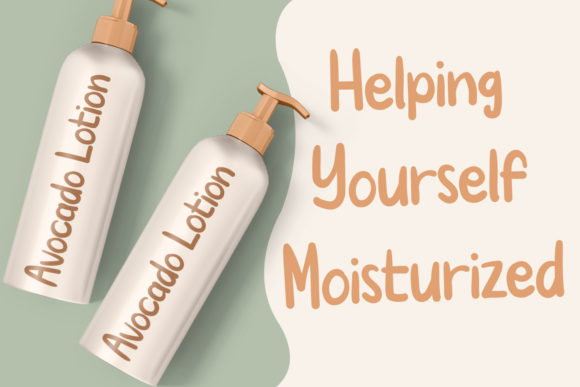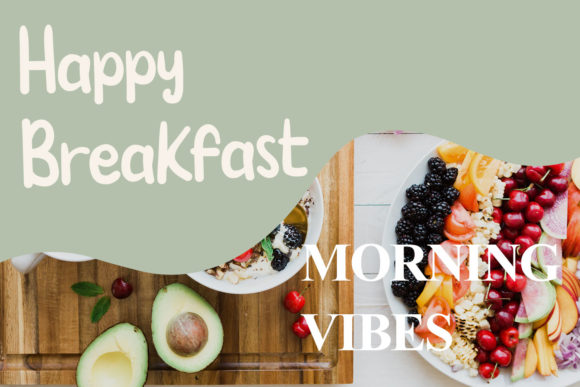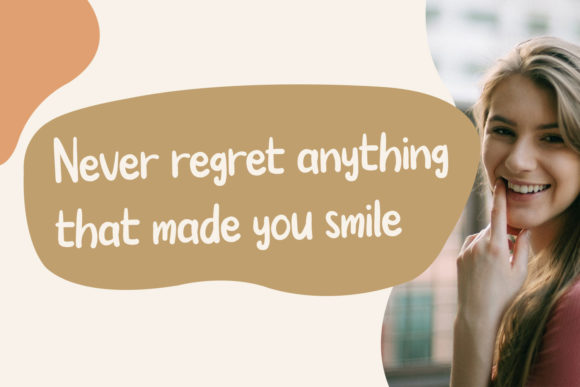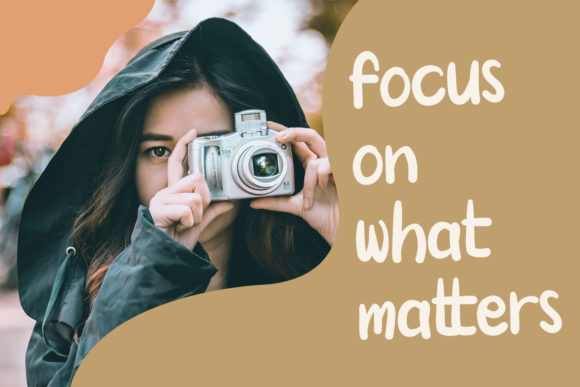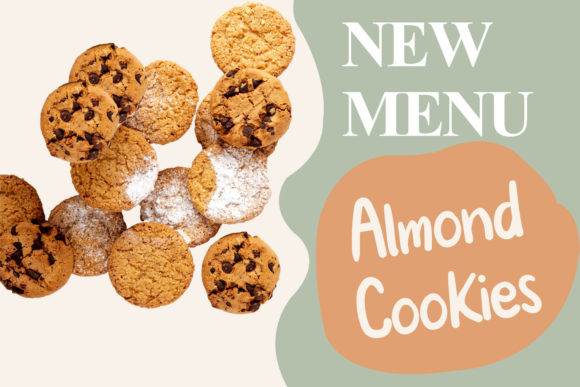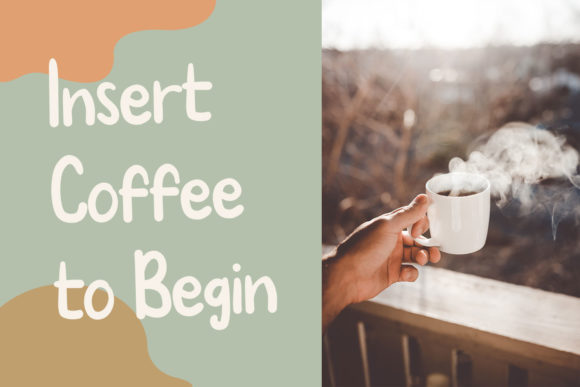
Introducing Bayonette Font: The Perfect Handwritten Companion for Your Design Projects
In the world of typography, a font can make all the difference in the success of a design project. Whether you’re a seasoned designer or a crafty DIY enthusiast, finding the right font can elevate your work from ordinary to extraordinary. If you’re on the hunt for a simple yet elegant handwritten font, look no further than Bayonette. This versatile and flowing script is perfect for adding a fun and friendly touch to a wide range of design ideas.
What is Bayonette Font?
Bayonette is a beautiful, handwritten font that exudes a sense of simplicity and elegance. Its flowing lines and curves create a soft, approachable feel that’s perfect for designs that require a personal touch. This font is designed to be adaptable, making it suitable for a variety of projects, from digital designs to print materials.
Key Features of Bayonette Font
- Simple and Elegant: Bayonette’s clean lines and simple design make it easy to read and versatile enough to use in a variety of contexts.
- Flowing Handwritten Style: The font’s flowing script style adds a touch of elegance and sophistication to any design.
- Adaptable: Bayonette can be used for a wide range of design projects, from digital media to print materials, and everything in between.
- Fun and Friendly: The font’s friendly and approachable feel makes it perfect for designs that require a personal touch.
Uses for Bayonette Font
Bayonette’s versatility makes it suitable for a wide range of design projects, including:
- Digital Designs: Use Bayonette to add a personal touch to your website, social media graphics, or digital marketing materials.
- Print Materials: Bayonette is perfect for print projects, such as brochures, flyers, posters, and business cards.
- Crafting and Scrapbooking: Add a touch of elegance to your scrapbooking and crafting projects with Bayonette.
- Signage and Displays: Use Bayonette to create eye-catching signs and displays for events, promotions, or storefronts.
Tips for Using Bayonette Font
To get the most out of Bayonette, here are a few tips to keep in mind:
- Pair with Bold Fonts: Pair Bayonette with bold, sans-serif fonts to create a striking contrast and add visual interest to your designs.
- Experiment with Colors: Bayonette looks great in a variety of colors, so don’t be afraid to experiment and find the perfect hue for your design.
- Use for Headings and Titles: Bayonette is perfect for headings and titles, but can also be used for body text for a more elegant look.
Bayonette font is a beautiful, simple, and elegant handwritten font that’s perfect for adding a fun and friendly touch to your design projects. Its adaptability and versatility make it suitable for a wide range of designs, from digital media to print materials. Whether you’re a designer, crafter, or DIY enthusiast, Bayonette is a great addition to your font collection. So why not give it a try and see how it can elevate your designs to the next level?
With Bayonette font, you can create stunning designs that are sure to impress. So go ahead, get creative, and make Bayonette a part of your design journey!